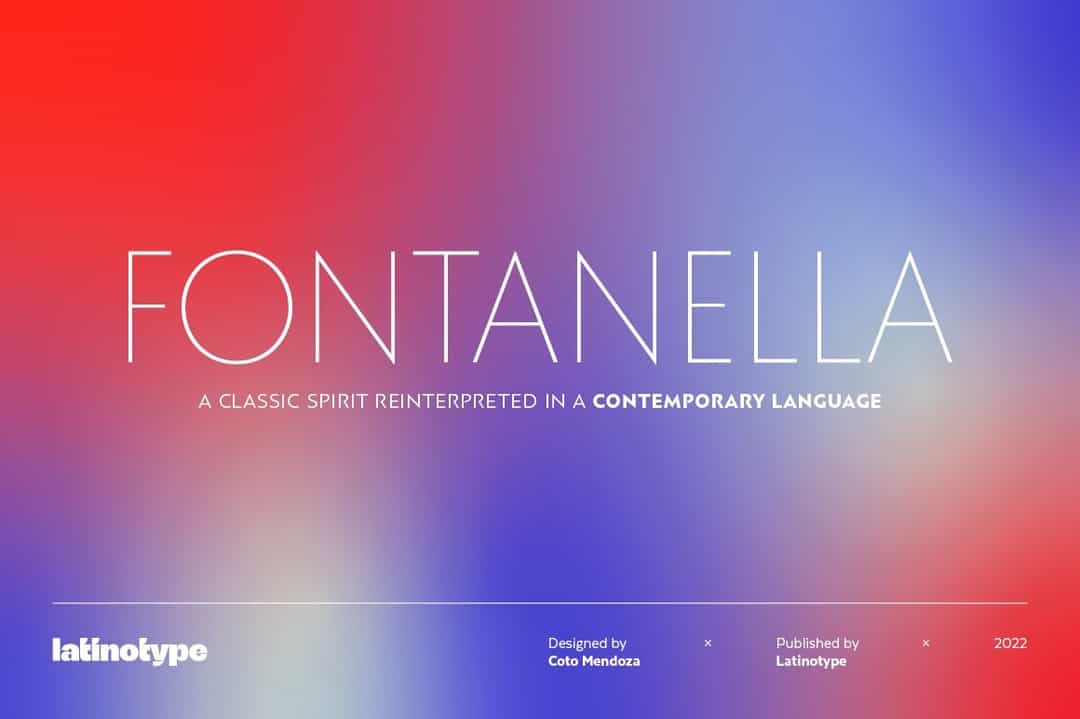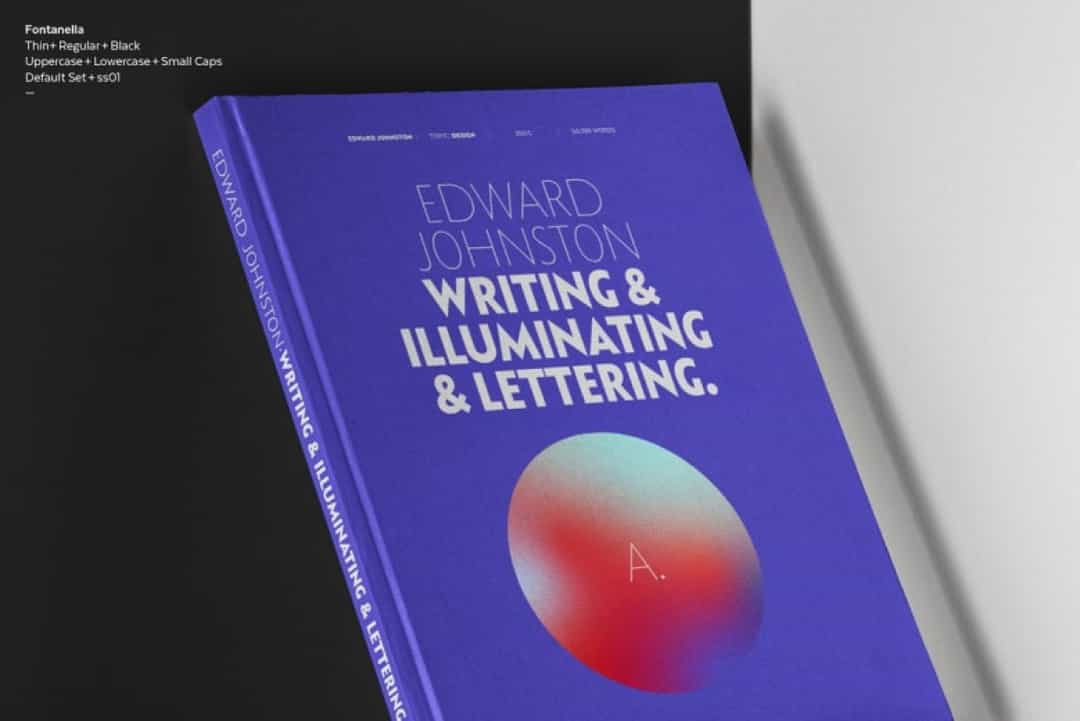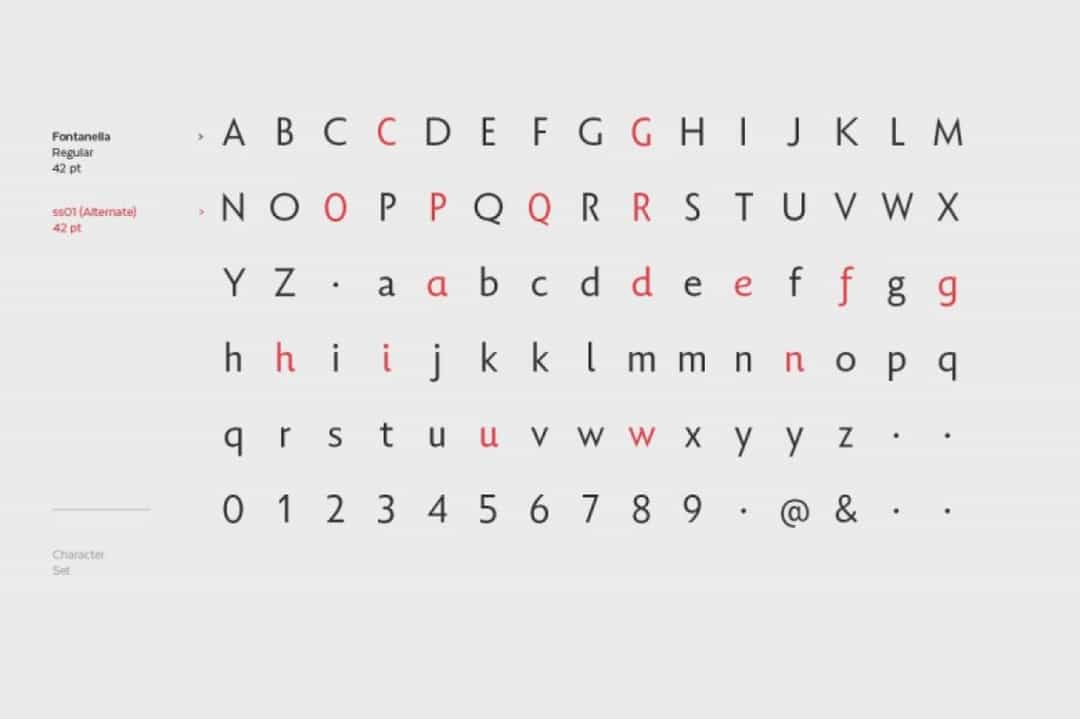
Fontanella was designed by Coto Mendoza as a sans serif font and resulted from calligraphy and drawing manual studies which investigated Roman capital letters’ classical ratios and skeleton. From these initial efforts came an 8 peso family sans serif font, along with its italic variations.